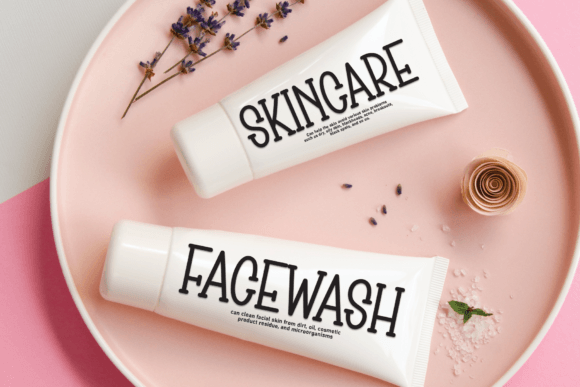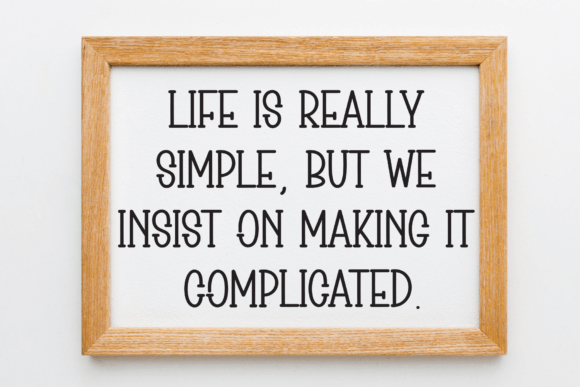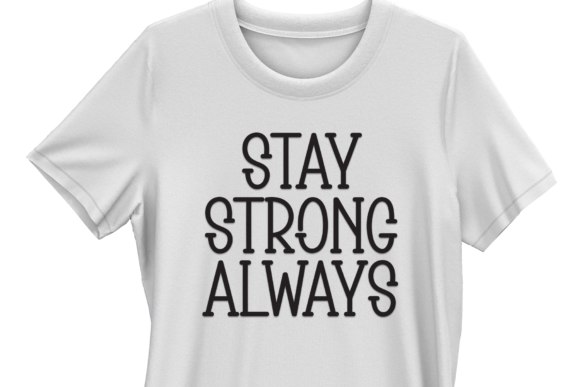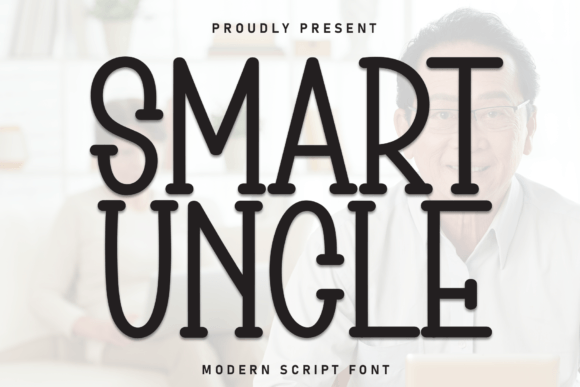
Introduction to Smart Uncle Font
Introducing a charming, personable handwritten display font that exudes sweetness and friendliness.
This delightful font creatively captures the essence of fun, making it an exemplary choice for crafting wedding invitations, cards, or any design project that is in need of a light-hearted and jovial touch, ensuring your designs not only stand out, but radiate a sense of joy and playfulness .
Key Features of Smart Uncle Font